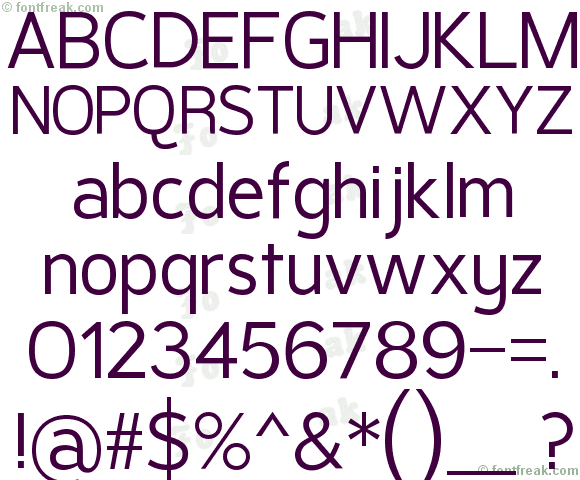
Pragma Sans
About Pragma Sans
Pragma Sans by Steve Gardner is a contemporary sans-serif font that embodies a clean and modern aesthetic. Known for its versatile design, this font features a consistent stroke weight, providing a sense of balance and harmony across various applications. The minimal contrast between thick and thin strokes enhances legibility, making it an excellent choice for both digital and print media. The generous spacing between characters contributes to an open feel, ensuring that text remains readable even at smaller sizes. Its straightforward design is devoid of unnecessary decorative elements, allowing the text to communicate clearly and effectively.
Pragma Sans is well-suited for a variety of use cases. Graphic designers can leverage this font for branding projects, ensuring that logos convey professionalism and modernity. Small business owners might find it ideal for creating eye-catching restaurant menus or promotional materials, where clarity is paramount. Content creators can utilize Pragma Sans in social media graphics and websites, presenting information in an easily digestible format. Additionally, this font can enhance the visual appeal of presentations, making it a go-to choice for educators and professionals alike.
Target audiences for Pragma Sans include graphic designers, small business owners, content creators, and anyone seeking a reliable and stylish typeface. Its modern look appeals to those who appreciate simplicity and functionality in design.